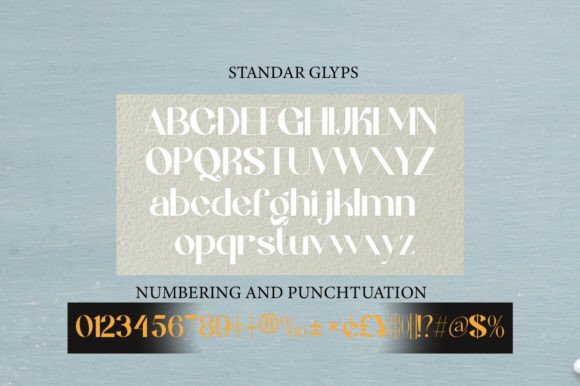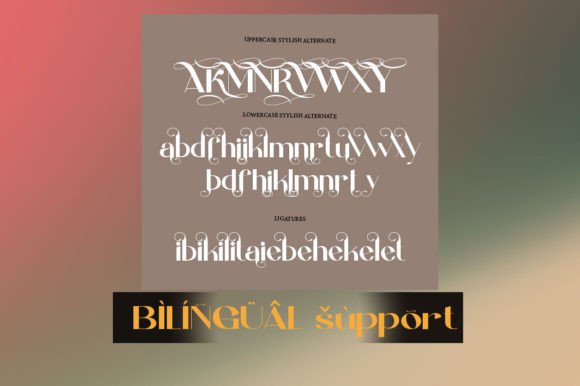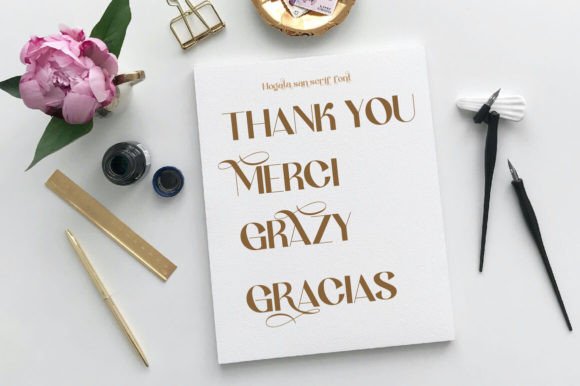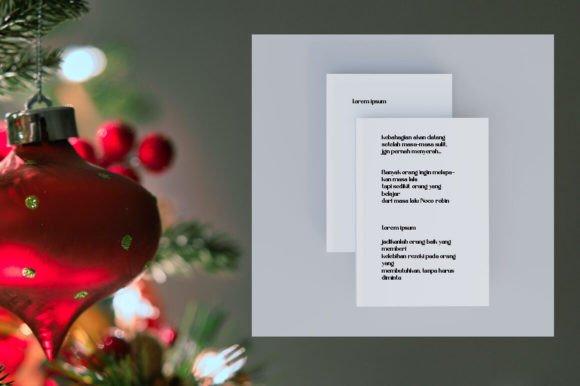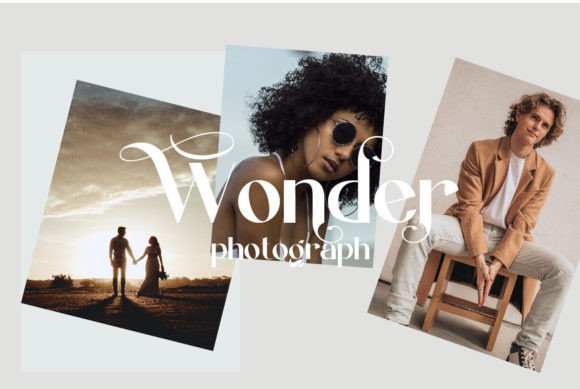
As a designer, there’s nothing quite like the thrill of finding the perfect font to bring your ideas to life. You’ve poured over countless options, from elegant serifs to bold sans-serifs, but nothing seems quite right. That is, until you stumble upon something truly special. For those in search of a font that embodies modernity and sophistication, we’re excited to introduce the Hogata Font.
With its beautiful style and controlled letterforms, Hogata Font is the perfect choice for a wide range of projects, from logos and magazine covers to movie titles and digital ads. Its versatility and adaptability make it an invaluable tool for designers looking to elevate their work. Whether you’re working on a high-profile branding campaign or a personal project, Hogata Font is sure to impress.
Hogata Font Key Features
- Font Family: Hogata is a sans-serif font family designed to be highly legible and versatile.
- Unique Characteristics: Hogata features a distinctive geometric shape and a subtle rounded edge, giving it a friendly and approachable feel.
Honest Review: Hogata Font
I recently had the chance to work with the Hogata font, and I have to say it’s a mixed bag. ✨ There are some things that really work well, but there are also some limitations that might hold you back.
- ✨ The Hogata font has a unique and quirky aesthetic that can really add some personality to your designs.
- ✨ The font is highly customizable, with a wide range of weights and styles to choose from.
- ✨ The Hogata font is also relatively easy to read, even at smaller font sizes.
- ⚠️ The font can be a bit too quirky for some designs, and might not be suitable for more formal or professional projects.
- ⚠️ The Hogata font can be a bit difficult to pair with other fonts, as its unique style can be overwhelming.
- ⚠️ The font is not ideal for long blocks of text, as the irregular letterforms can make it harder to read.
The Hogata font is a fun and creative option that can add some personality to your designs. While it has some limitations, it’s a great choice for projects where you want to stand out and make a statement. Just be sure to use it sparingly and in the right context.
Hogata Font is ideal for creative and modern designs. Use it for:
– Branding materials
– Blog posts and articles
– Wedding invitations